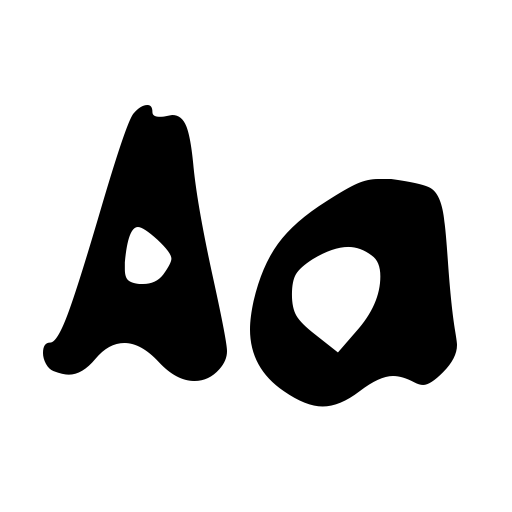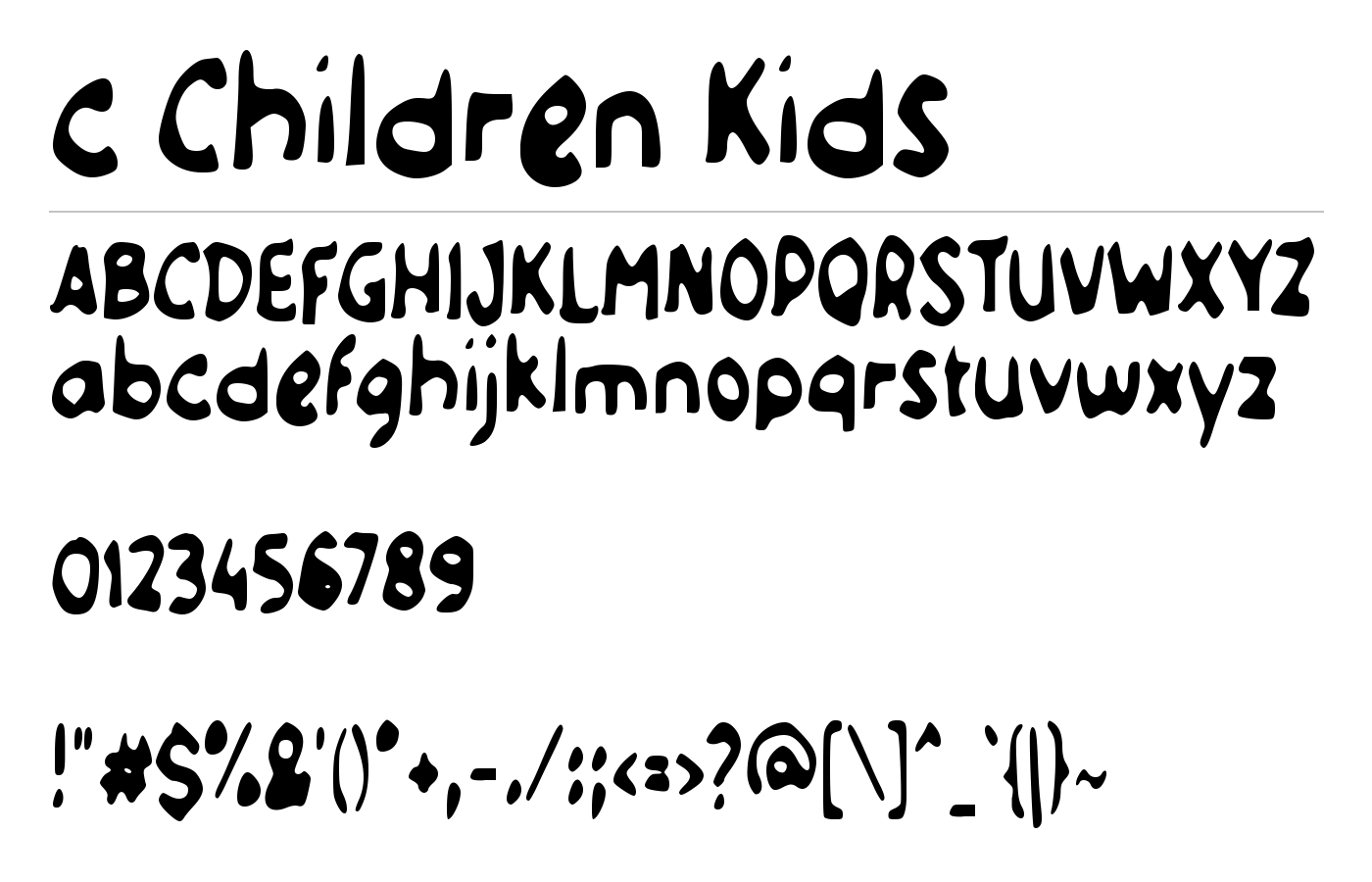
c Children Kids Font is a playful, handwritten sans serif typeface with irregular, rounded shapes that evoke a childlike and friendly feel. Its bouncy letterforms and whimsical strokes make it perfect for designs aimed at children, such as kids’ books, educational materials, and playful branding. This font adds a warm, approachable personality that works well for fun and informal contexts.
c Children Kids Font